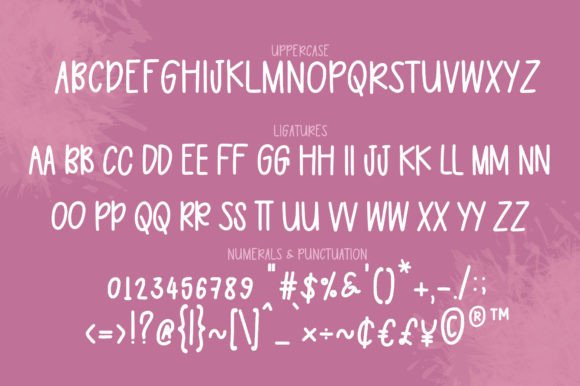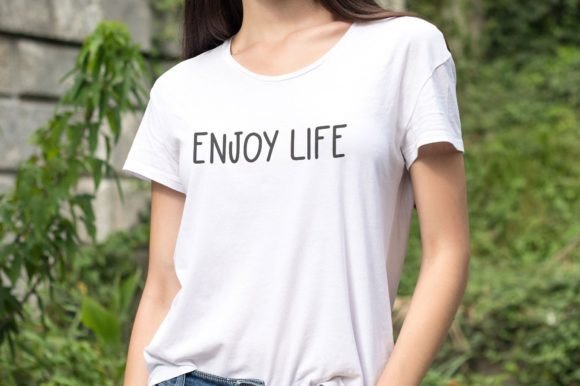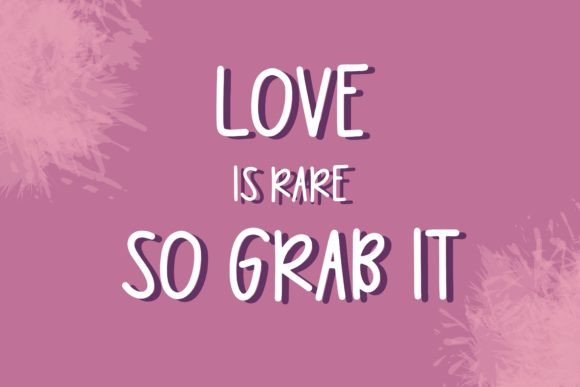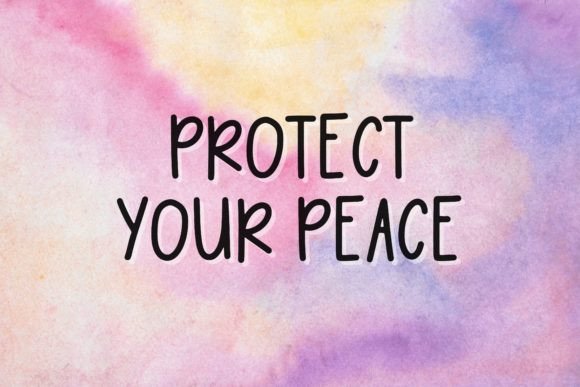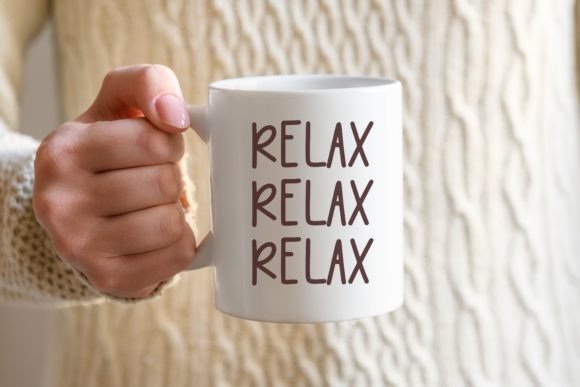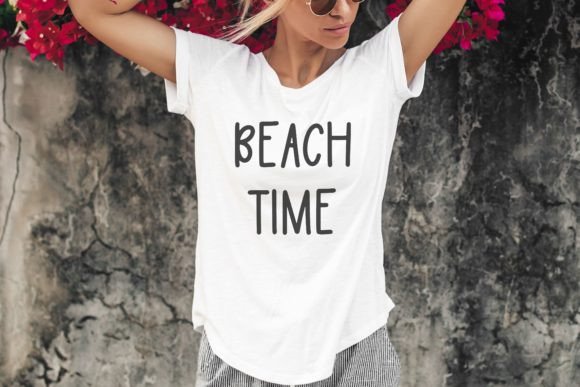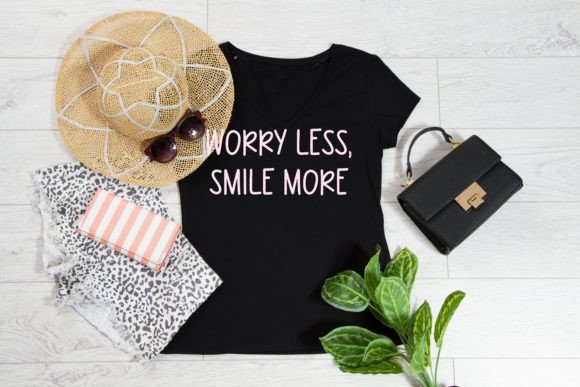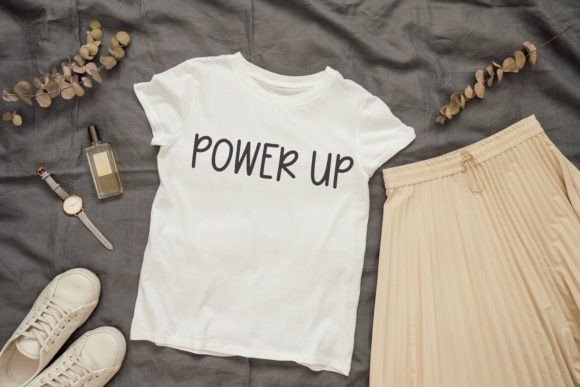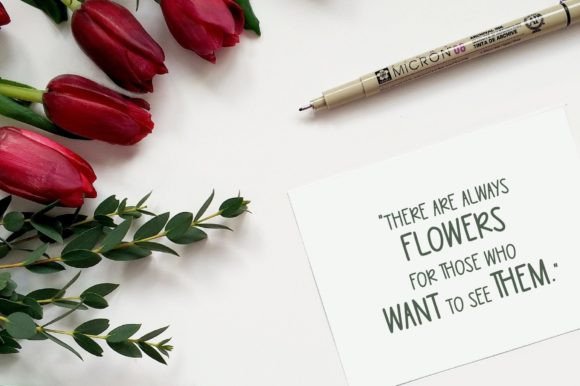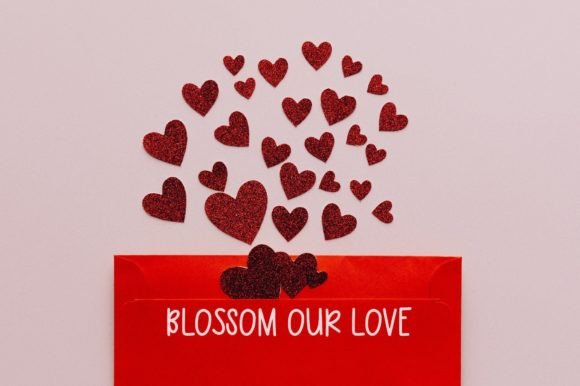
Rose Blossom Font
About Rose Blossom Font
Rose Blossom, a cute and friendly handwritten font, introduces a charming and versatile option for a variety of creative projects. Whether you’re crafting quotes, logos, or any lettering product, Rose Blossom brings a delightful and approachable touch to your designs.
The cute and friendly features of Rose Blossom make it suitable for diverse design applications, infusing a sense of style and approachability into your text. The handwritten style adds a personal and authentic touch to your projects, enhancing their overall visual appeal.
Rose Blossom’s PUA encoding feature ensures easy access to a variety of glyphs and swashes, allowing for seamless customization and personalization of your designs. This feature empowers you to experiment with different elements, adding a unique and customized touch to your lettering.
Incorporate Rose Blossom into your creative toolkit and experience how it transforms ordinary designs into cute and friendly expressions of creativity. Whether you’re designing for print or digital media, Rose Blossom is a font that brings a charming and friendly energy to various design applications. Let Rose Blossom be the key element that makes your creative ideas stand out, and enjoy the versatility it brings to your projects!